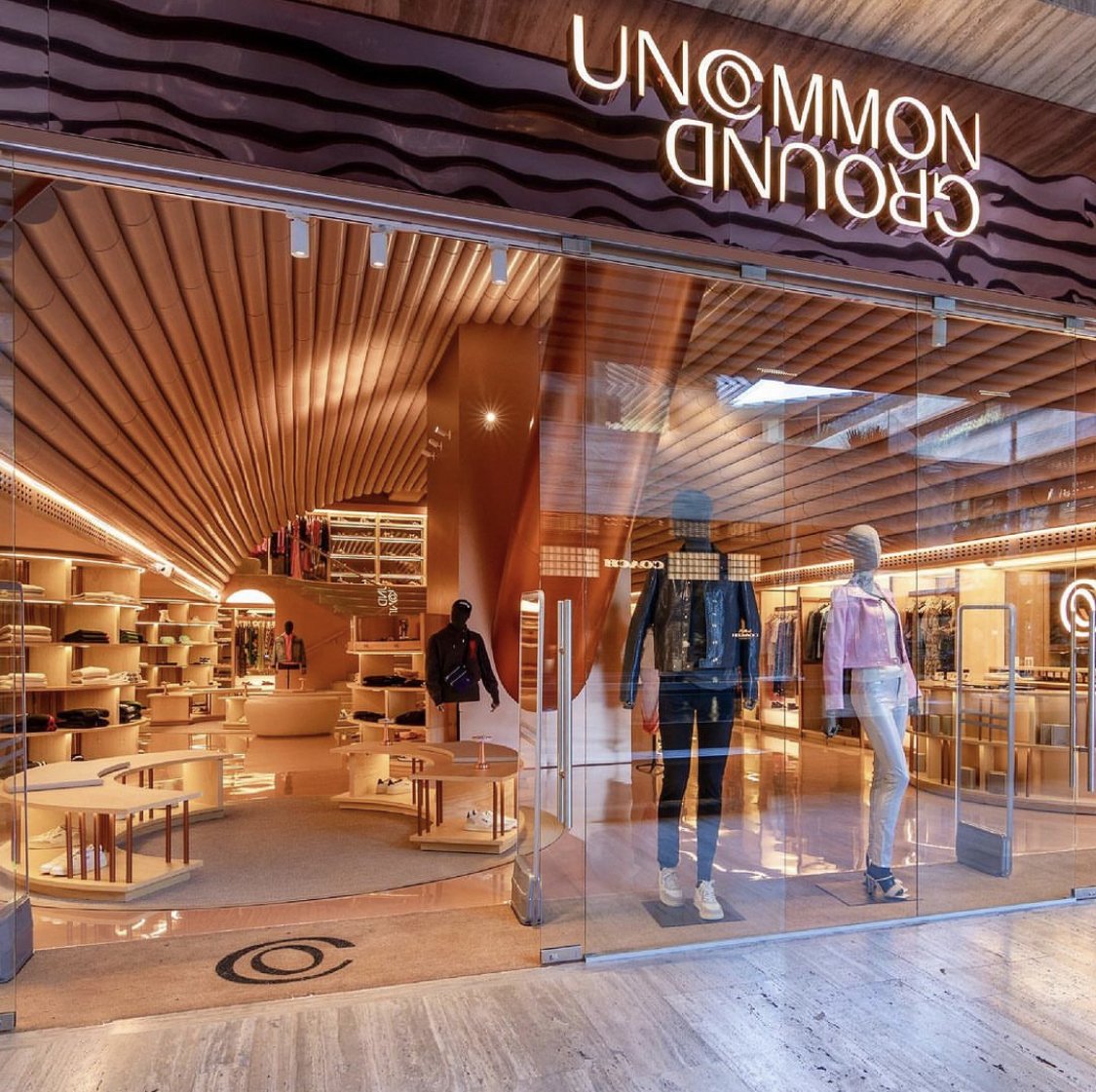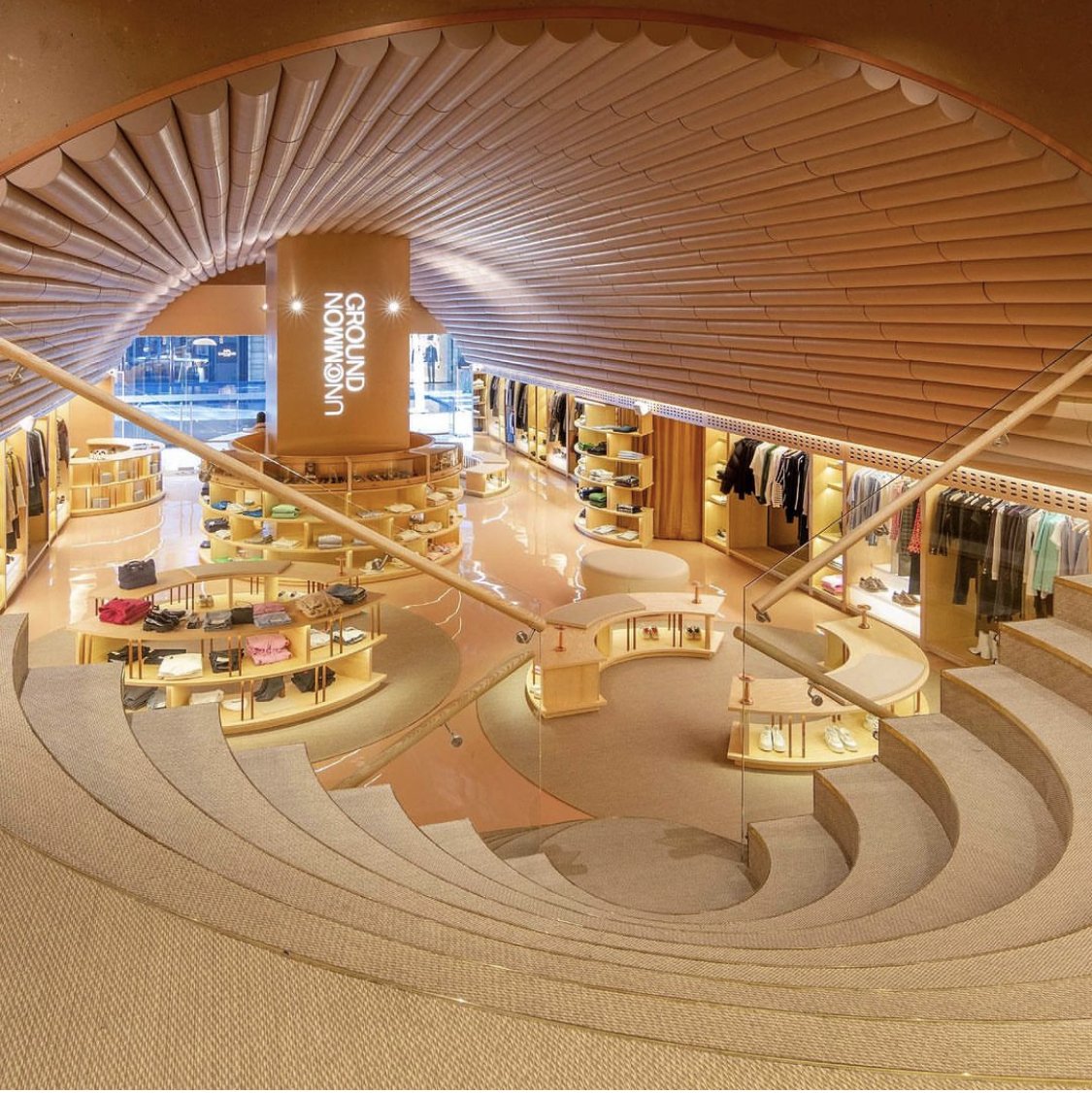
THE BRIEF
This team came to us wanting to develop a completely new, innovative brand for a concept store in Artz Pedregal, Mexico City.
THE SOLUTION
Looking to emphasize this store’s selection of distinct pieces for fashion enthusiasts, we developed a brand that felt different than its competitors. Instead of looking for “common ground,” or things that you find similar to others, we go in another direction and celebrate uncommon ground. Those looking to express their uniqueness are most welcome at Uncommon Ground.
TYPE DESIGN
This type design by developed by Esteban Fuentes and directed by Adriana Longoria is what brings this brand to life. It is used throughout the identity in areas such as wayfinding and brand collateral. The unique ligature found in the brand name give the brand recognition throughout its communication.